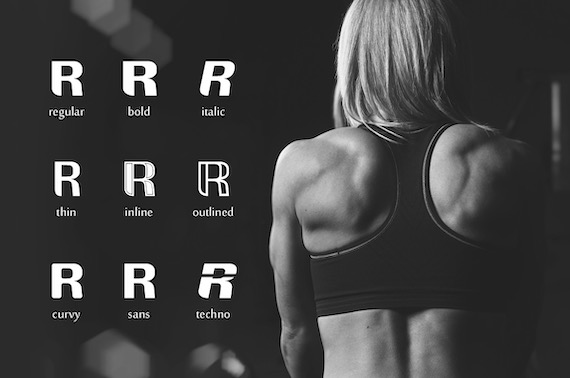
About Rockrace Font. This is a classy gorgeous display font family with an authentic sans serif style which includes nine unique different fonts that you can combine as you wish. We hight recommended headlines and displays. Useful for any design project, but works extremely well for sport, techno, and minimalism theme.
Rockrace Display Sans Font